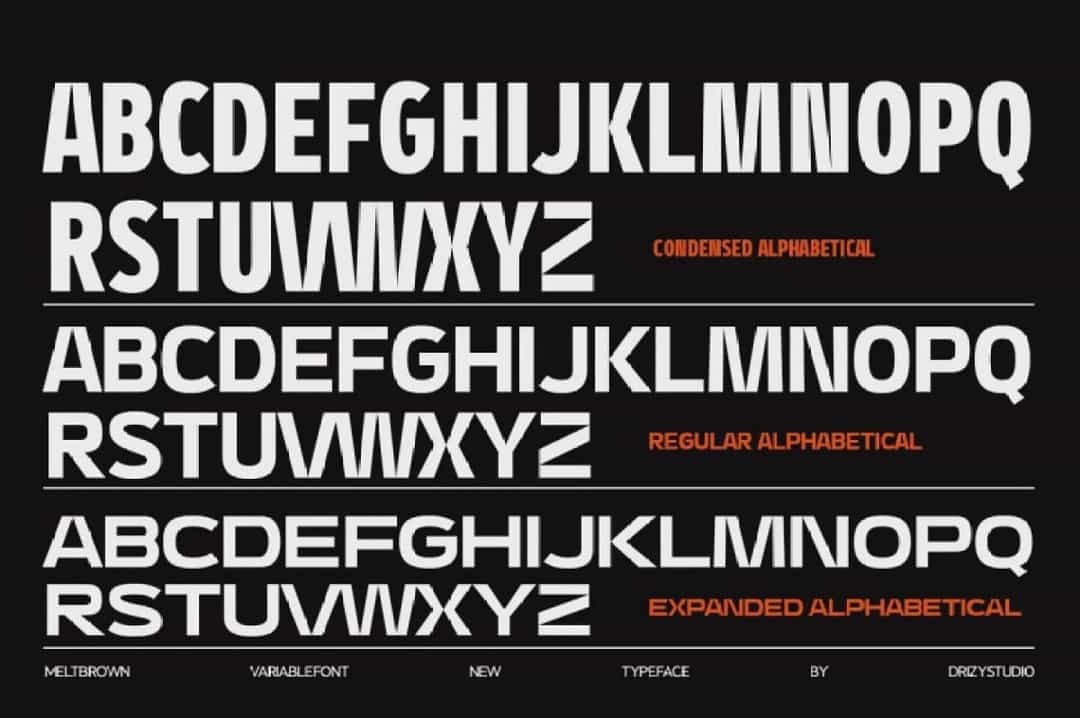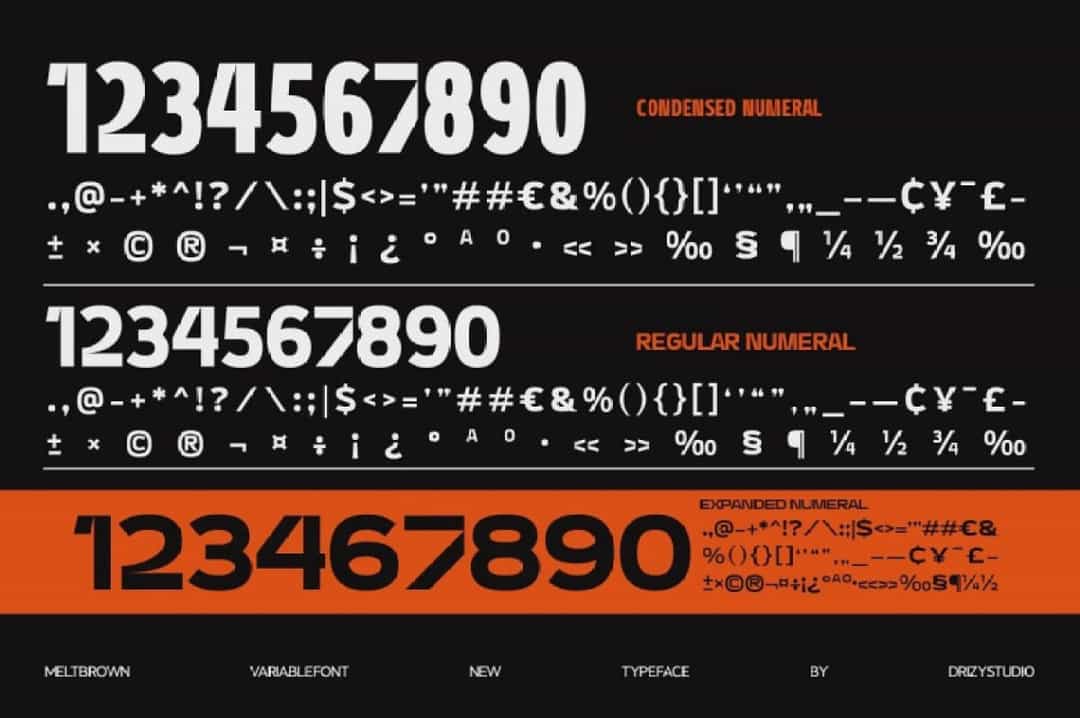
Meltbrown is our Modern Industrial Display Font. Featuring its visually harmonious combination of sleek forms, precise geometric lines and urban swagger makes Meltbrown an excellent option for design-related projects of all kinds.